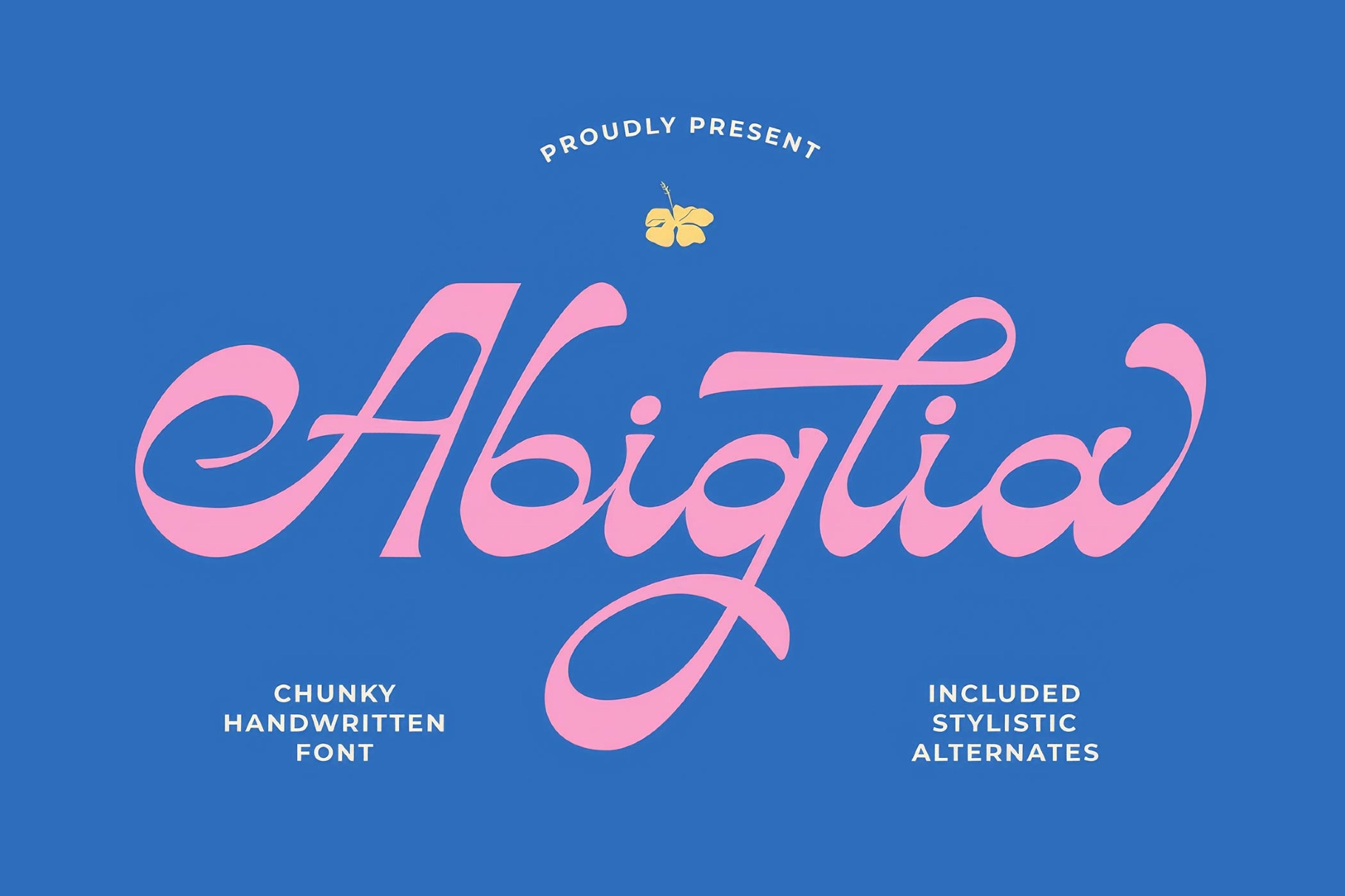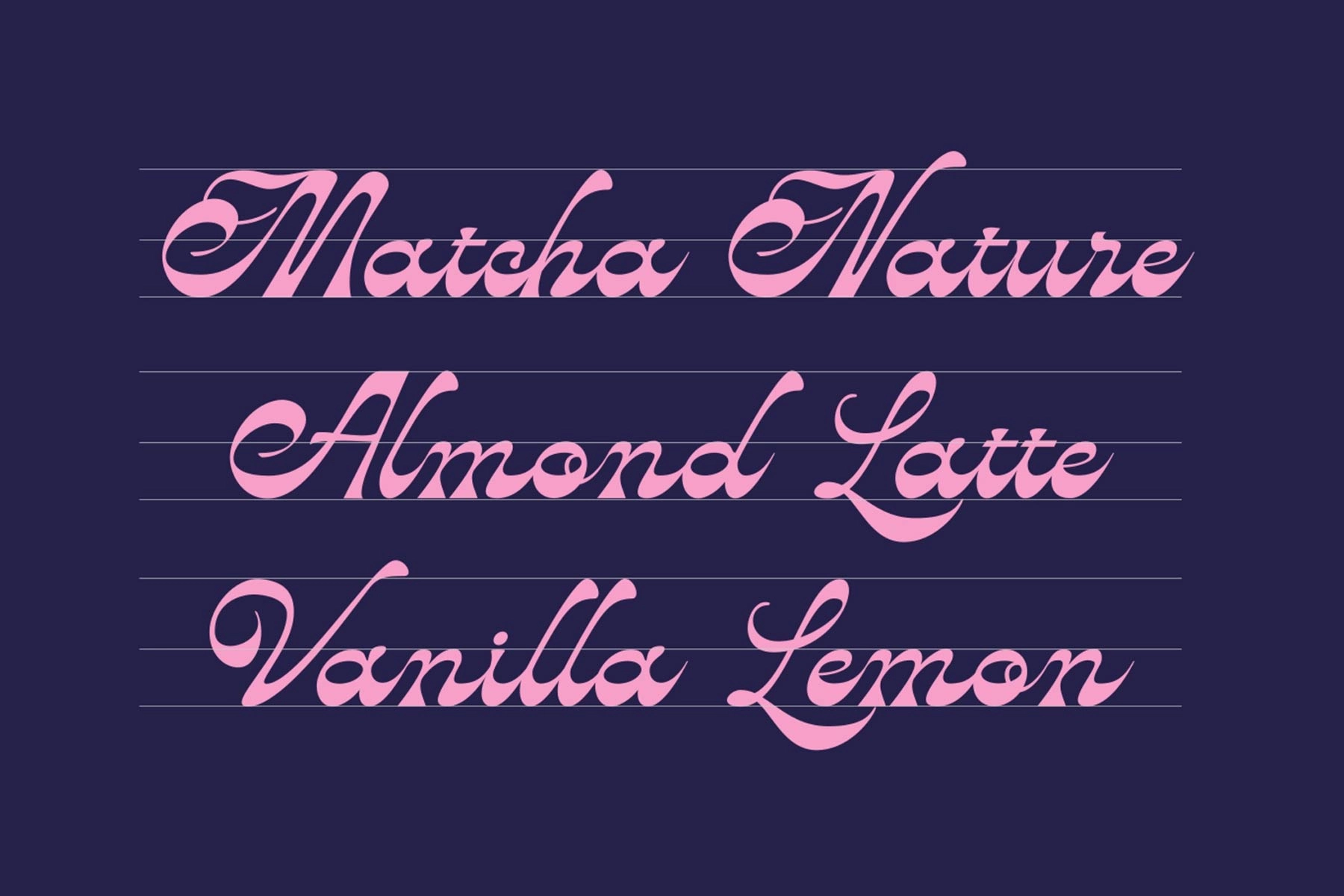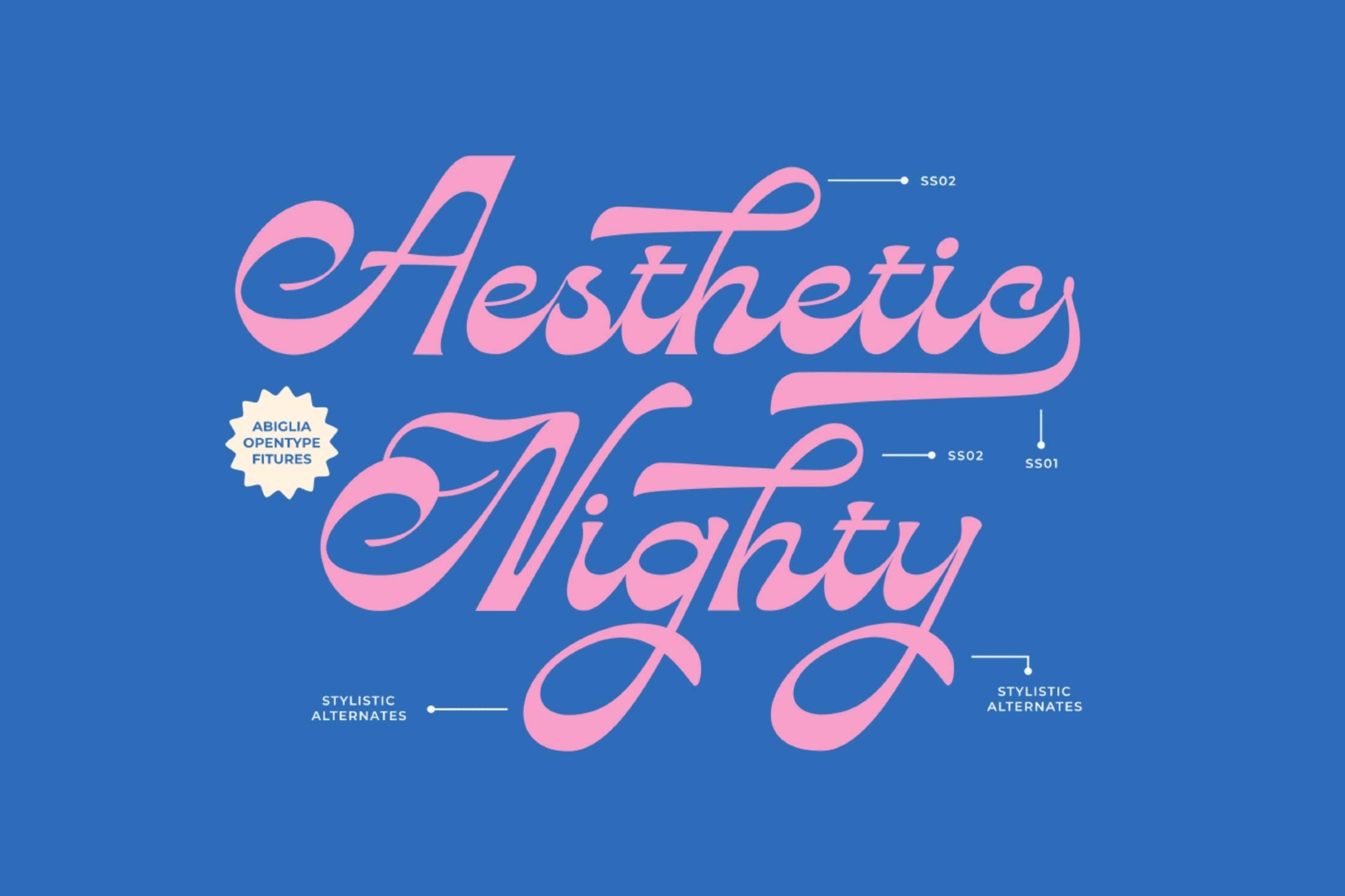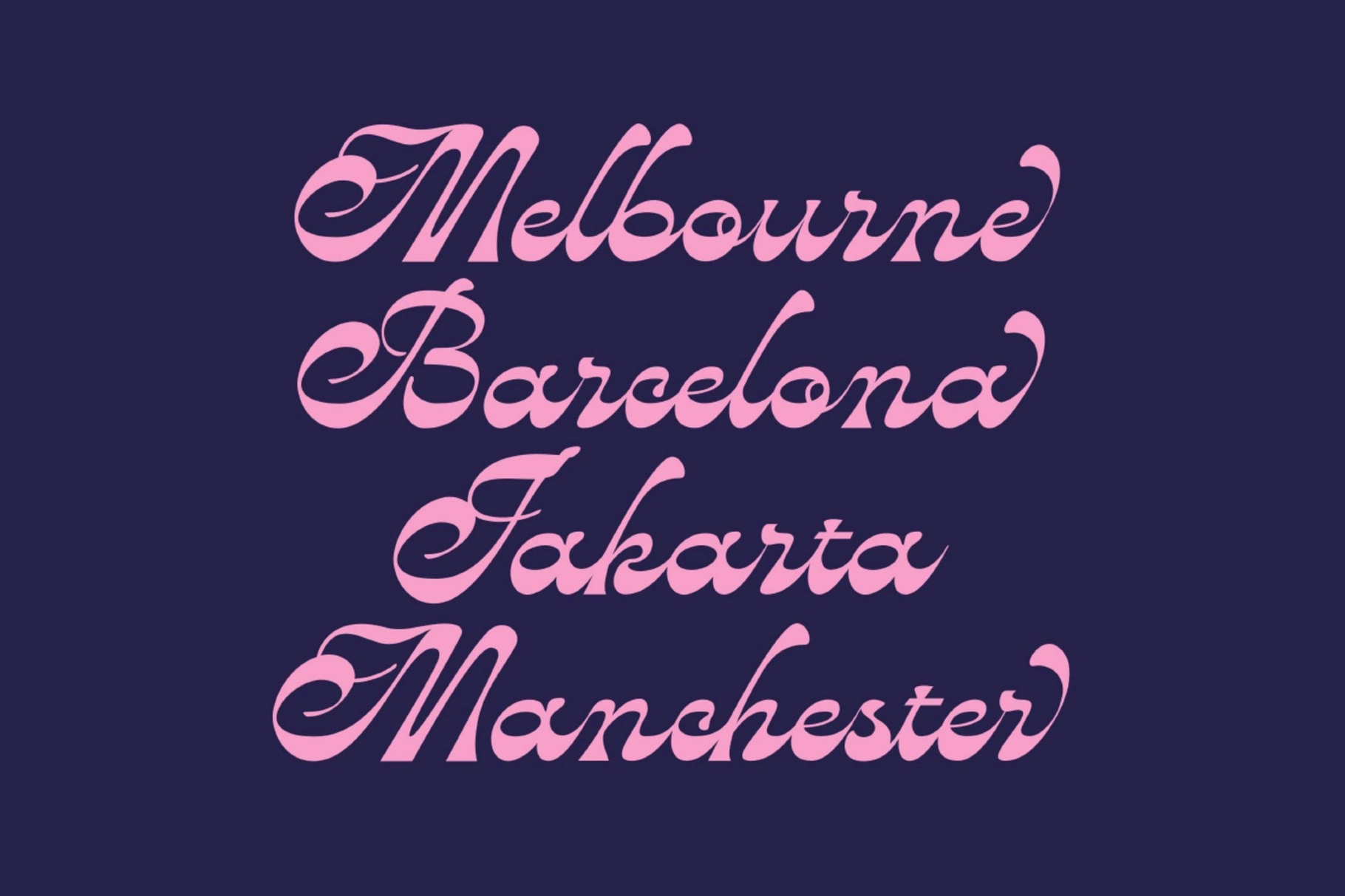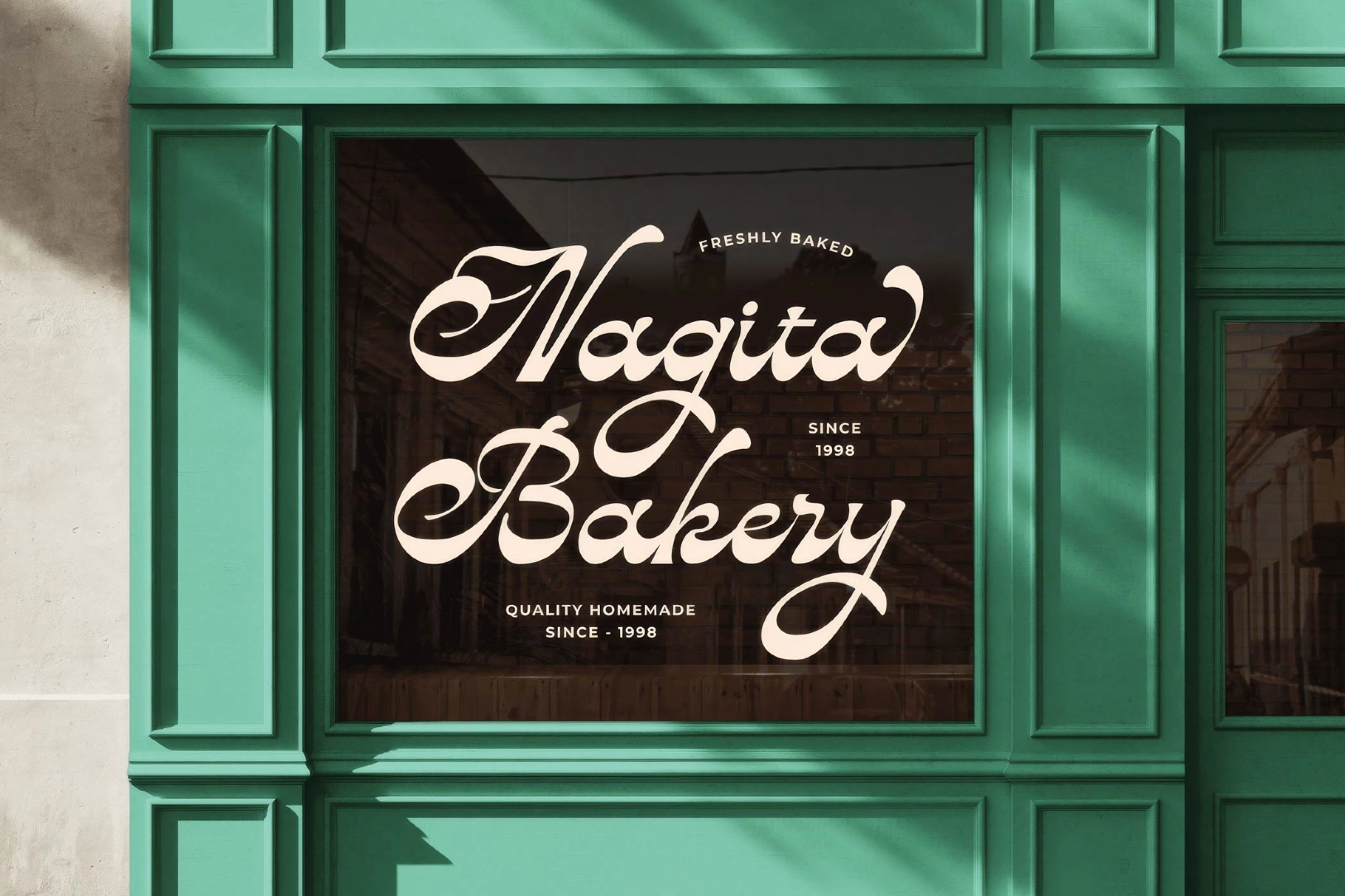
Abiglia - Chunky Handwritten Script Font
Abiglia leans into thick, bold script strokes with oversized looping swashes on the capitals — the kind of connected, hand-drawn curl that makes a word read as one continuous gesture instead of separate letters. The weight stays heavy and consistent through both curves and connections, giving it a chunky, confident script feel instead of the thin, wispy look most calligraphic scripts go for.
Three stylistic alternate sets swap in different loop and tail shapes for the capitals, so repeated letters across a logotype or headline don't look identical. Use it for branding, logo lockups, packaging labels, wedding invitations, quote graphics, posters, and social media graphics.
• Uppercase & lowercase;
• Numerals, punctuation & symbols;
• 3 stylistic alternate sets for the capitals;
• Kerning support;